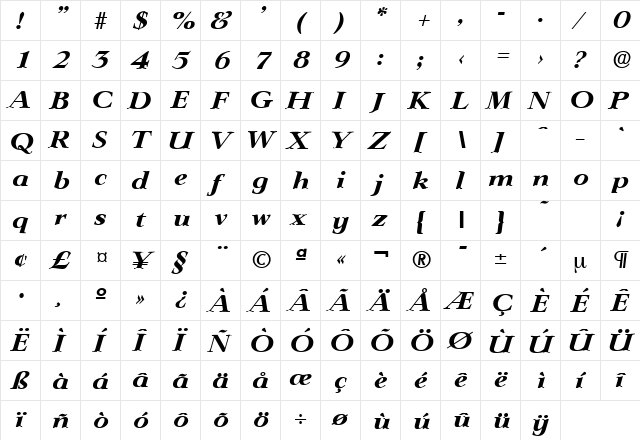
Lingwood-Serial-ExtraBold RegularItalic
Design Context for Lingwood-Serial-ExtraBold Typeface
Lingwood-Serial-ExtraBold echoes the hand-painted signage and woodblock typography of the American frontier, with a warm, rugged personality. Its italic angle brings a sense of urgency and motion to the letterforms. Its bold stroke weight gives it real presence on the page.
Perfect for barbecue restaurants, country music branding, vintage poster design, and rustic packaging.
Font Pairing: Combine Lingwood-Serial-ExtraBold with a simple slab or neutral sans — period-accurate companions reinforce the vintage feel without competing for attention.
Pro Tip: Pair Lingwood-Serial-ExtraBold with aged textures or distressed backgrounds to amplify its vintage personality.